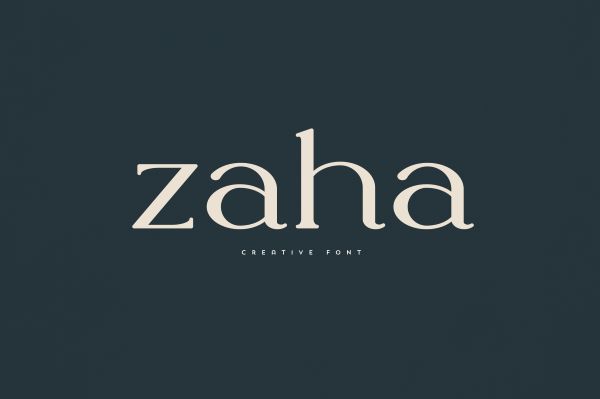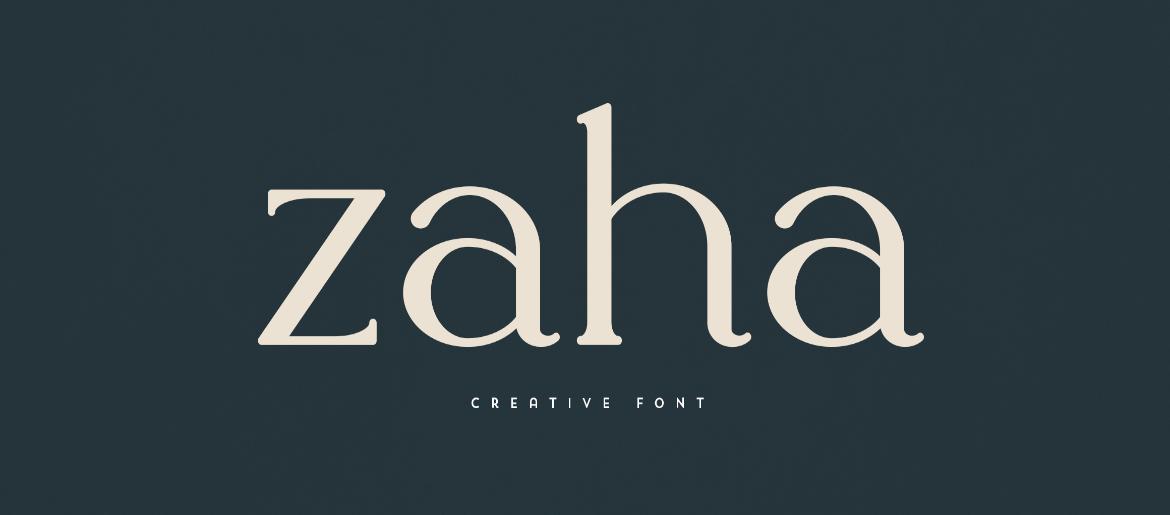
Zaha Font
Zaha by VP creativeshop is a minimal display serif typeface with a clean, architectural elegance that feels as considered as the name it carries. Its letterforms are refined and unhurried — slender strokes, precise serifs, and generous spacing that allow each character room to breathe and assert its own quiet authority. The result is a typeface that performs beautifully in logo design, editorial headers, and upscale branding contexts where restraint and clarity are more powerful than decoration. Free for personal use.